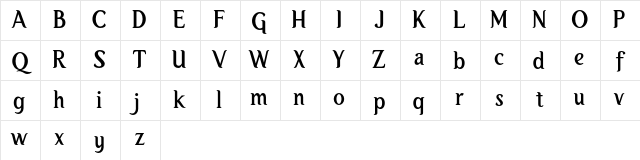
Itikaf FREE Regular
Foundry: inspiratype
Designer: inspiratype
Design Context for Itikaf FREE
Itikaf FREE is a composed and adaptable typeface that performs quietly and consistently across a wide range of design contexts.